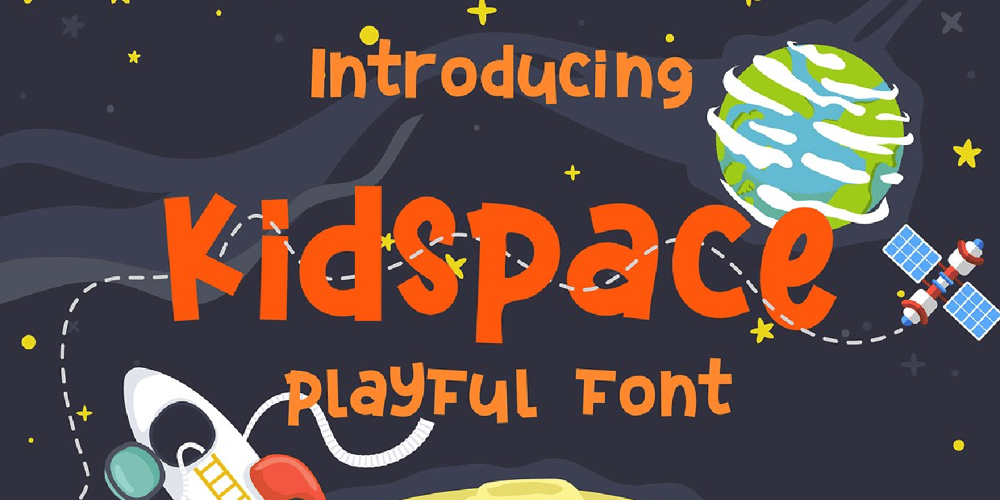
Kidspace
Kidspace font
Kidspace Font Family was designed by Abdurrahman Hanif and published by Monoco Type. Kidspace contains 1 styles and family package options. Kidspace is playful style font, with alphabet, numbers, symbol, and multilingual feature. You can use this on kids project, logo, social media post, book cover, and other project.